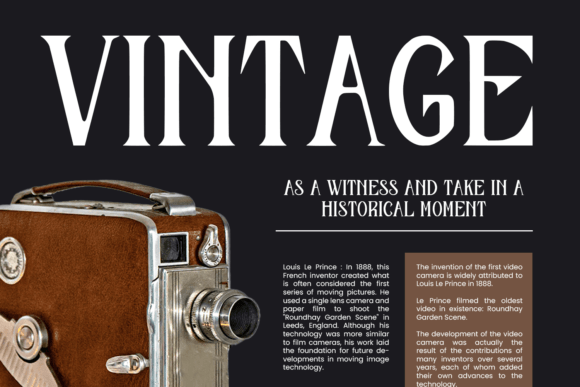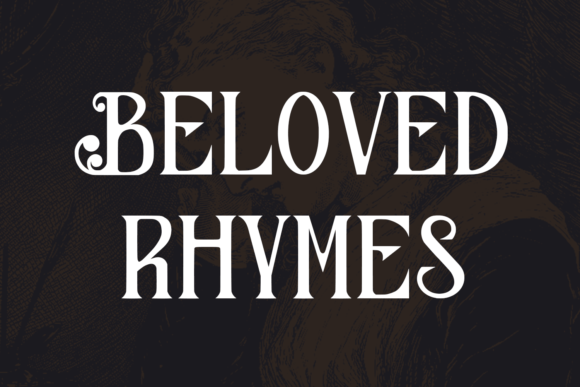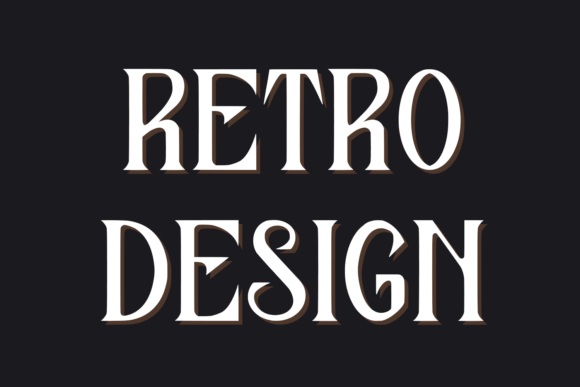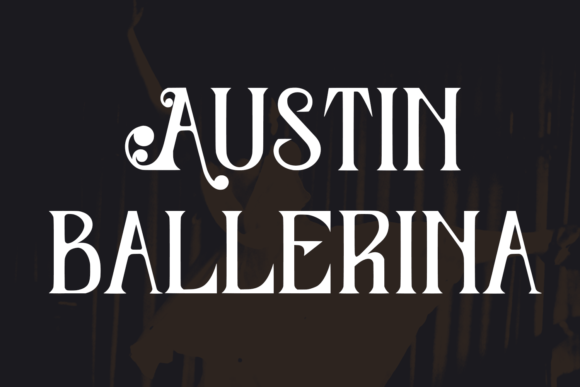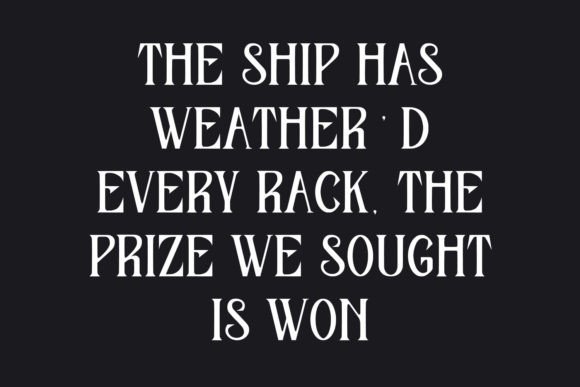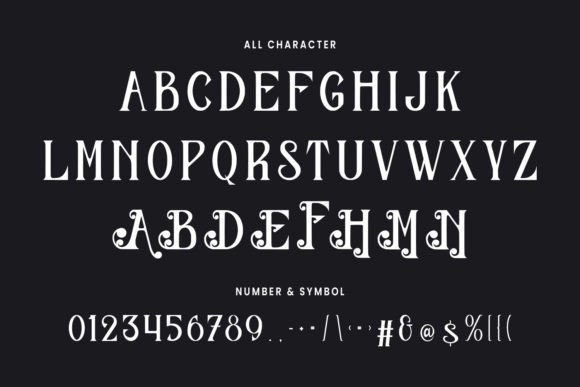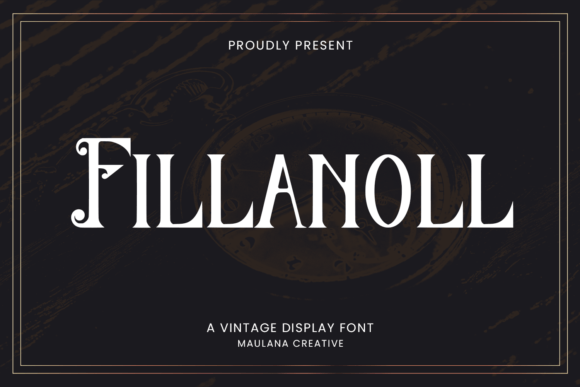
Introducing Fillanoll Font: A Timeless Vintage Display Font
In the world of typography, fonts play a crucial role in conveying messages, expressing emotions, and creating visual identities. For designers and crafters, finding the perfect font can be a daunting task, especially when looking for something that seamlessly blends modern and classic styles. This is where Fillanoll Font comes in – a stunning vintage display font that effortlessly merges the elegance of the past with the sophistication of the present.
The Inspiration Behind Fillanoll Font
Fillanoll Font takes its inspiration from the early 1800s, a time when typography was characterized by ornate and decorative lettering styles. The font’s creator aimed to capture the essence of this era and infuse it with a modern twist, resulting in a truly unique and captivating typeface. With its hand-lettered style, Fillanoll Font exudes a sense of warmth and personality, making it perfect for a wide range of design applications.
Key Features of Fillanoll Font
So, what sets Fillanoll Font apart from other display fonts? Here are some of its key features:
- Hand-lettered style: Fillanoll Font boasts a beautiful, hand-crafted design that gives it a distinctive and organic feel.
- Modern and classic blend: The font seamlessly combines modern typography with classic elements, making it versatile and timeless.
- Great alternates: Fillanoll Font comes with an impressive set of alternate characters, allowing designers to add variety and creativity to their work.
- Vintage charm: The font’s inspiration from the early 1800s gives it a unique, vintage charm that adds a touch of elegance to any design.
Use Cases for Fillanoll Font
Fillanoll Font’s versatility makes it suitable for a wide range of design projects, including:
- Logos and branding: The font’s unique blend of modern and classic styles makes it perfect for creating distinctive logos and brand identities.
- Headings and titles: Fillanoll Font’s elegant design and alternate characters make it ideal for use in headings, titles, and other display text.
- Packaging and labels: The font’s vintage charm and hand-lettered style make it a great choice for packaging and label design.
- Invitations and stationery: Fillanoll Font’s classic and sophisticated design makes it perfect for use in invitations, stationery, and other paper goods.
Tips for Using Fillanoll Font Effectively
To get the most out of Fillanoll Font, here are some tips for using it effectively:
- Experiment with alternates: Take advantage of the font’s alternate characters to add variety and creativity to your design.
- Pair with complementary fonts: Combine Fillanoll Font with complementary fonts to create a harmonious and visually appealing design.
- Use for display text: Fillanoll Font is designed for display text, so use it to create eye-catching headings and titles.
In conclusion, Fillanoll Font is a stunning vintage display font that offers a unique blend of modern and classic typography. With its hand-lettered style, great alternates, and vintage charm, it’s perfect for designers and crafters looking to add a touch of elegance and sophistication to their work. Whether you’re creating logos, headings, packaging, or invitations, Fillanoll Font is sure to make a lasting impression.